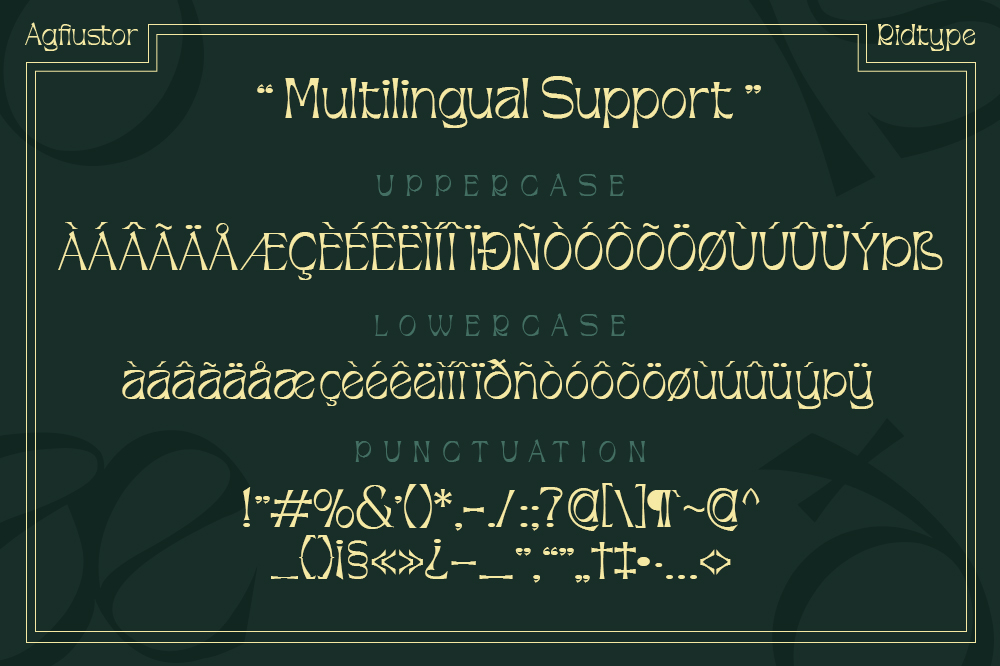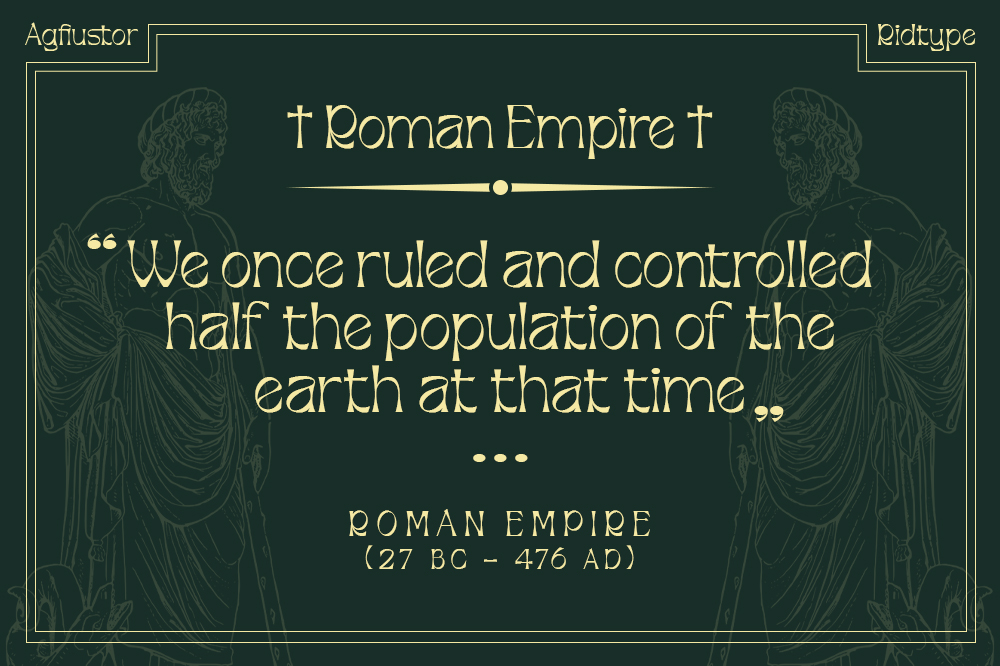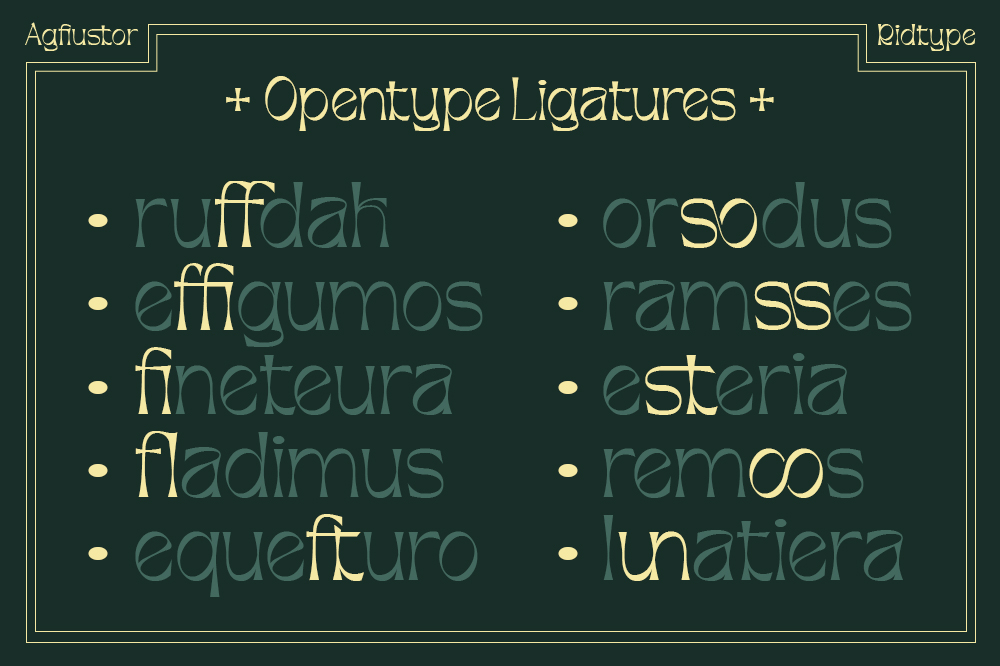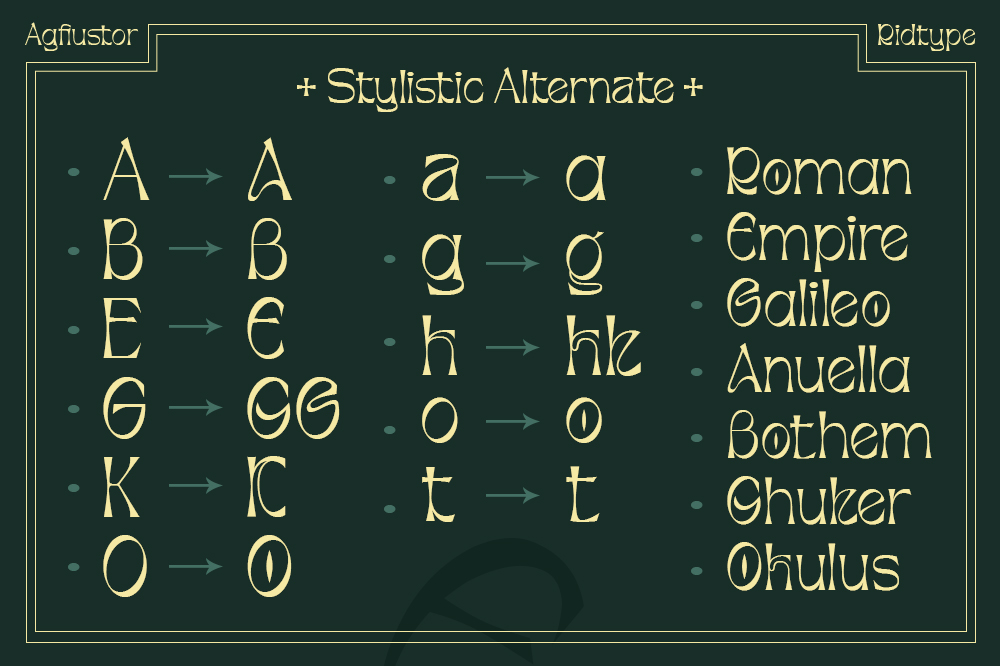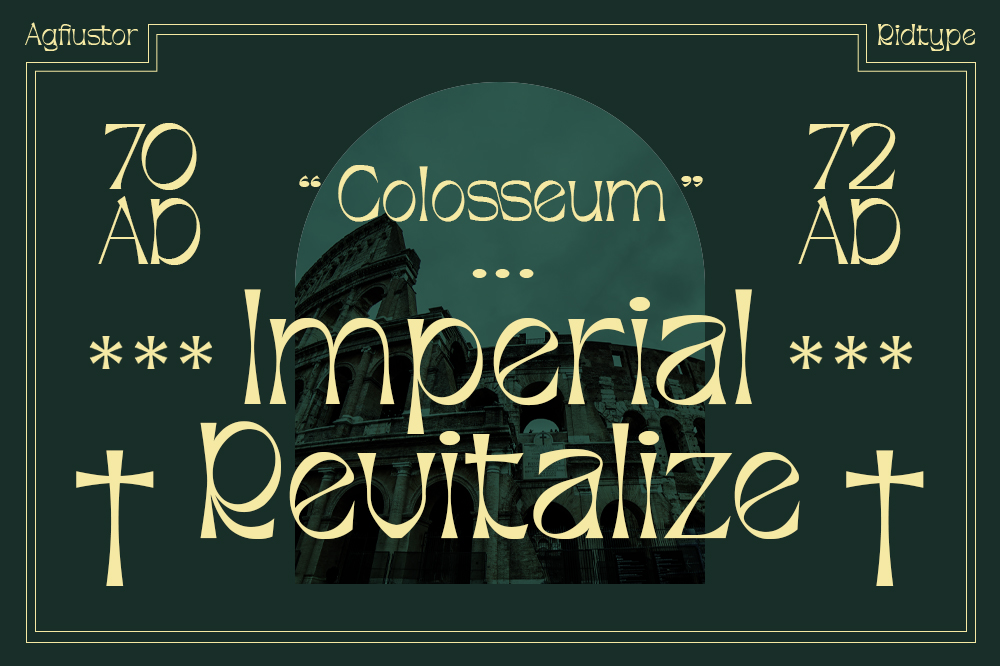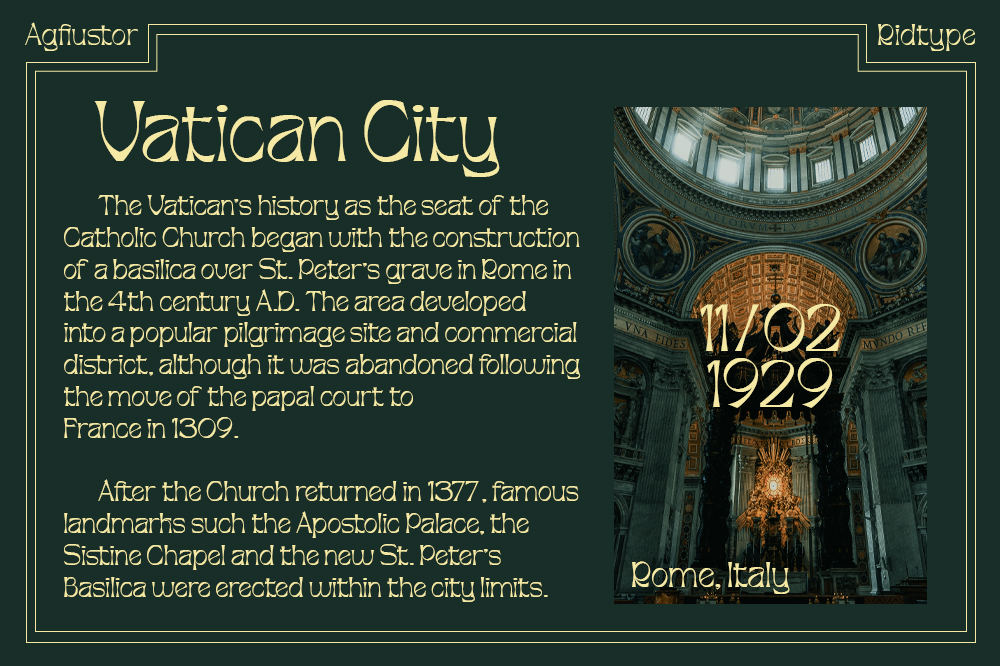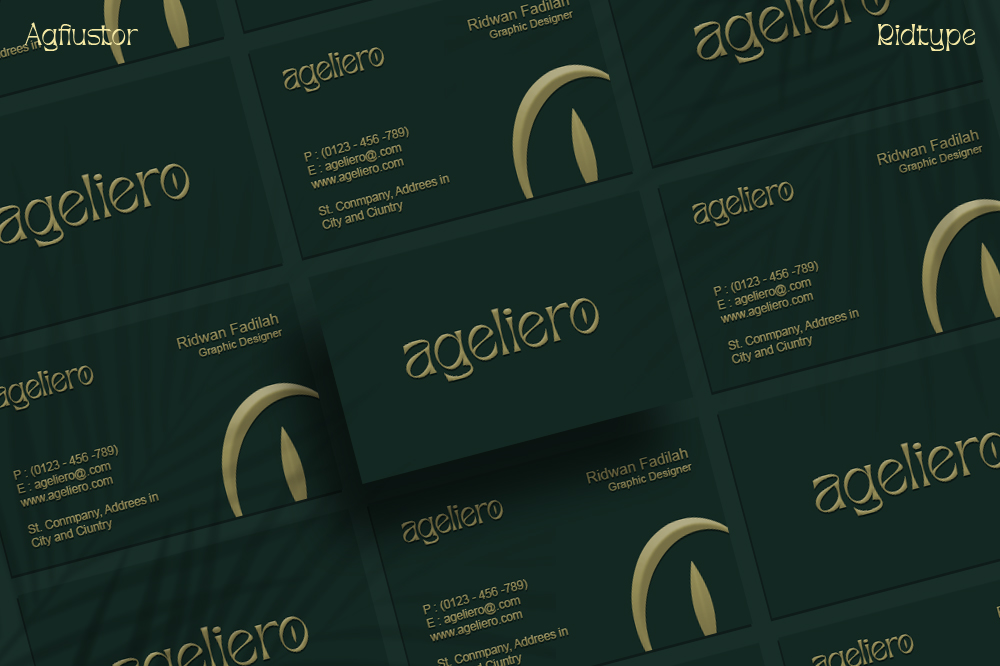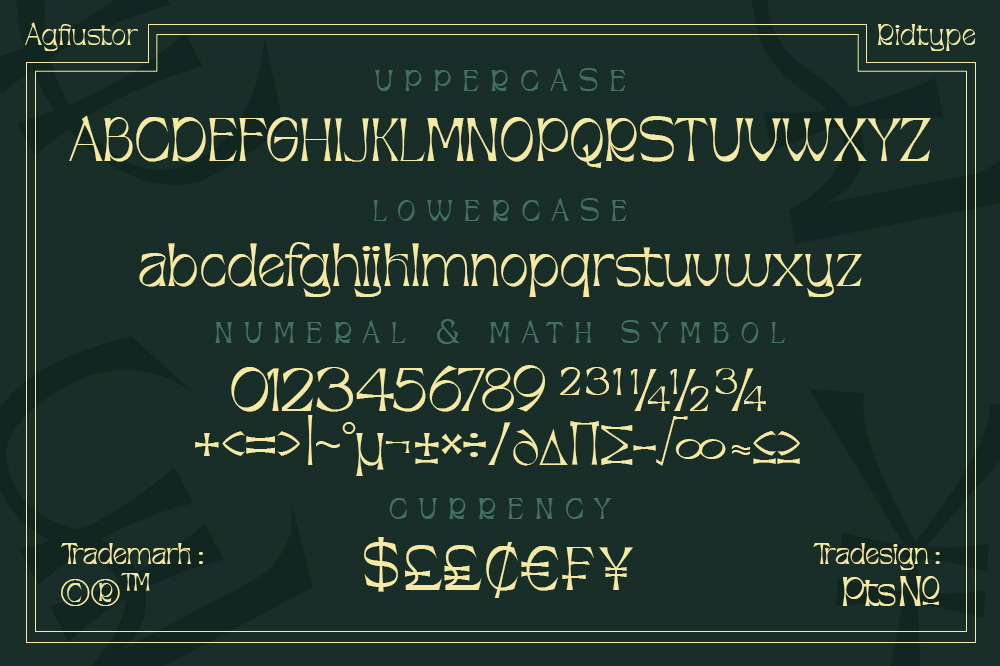
Agfiustor is inspired by the language and the Roman empire that ruled several centuries ago.
With the establishment of the Colosseum as a relic, this font was also created to honor and appreiated an achievement that at that time there was an empire that controlled almost half of the population on this earth. With that, the agfiustor font gives each letter a uniqueness, as well as with several alternate and ligature that make this agfiustor font look elegant in every place.
This font is also the best for use in small and large projects such as : custom logo types, project branding, packaging design, advertising, project printing, t-shirt designs, abstract art illustrations and many more which are suitable other place to use this font.